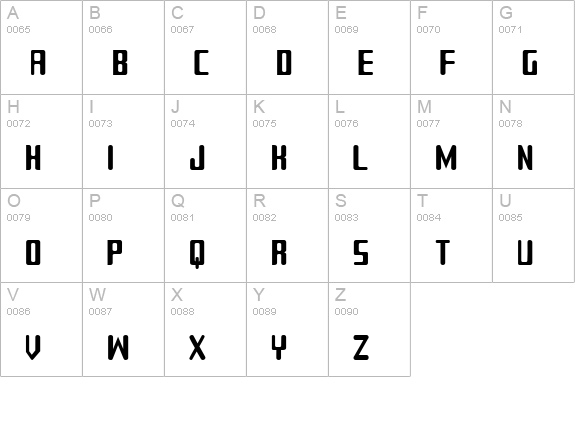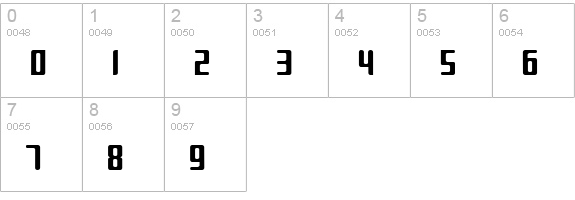
Sujeta Font Details
Sujeta font is a modern and elegant typeface that exudes sophistication and style. With its sleek lines and contemporary design, this font is perfect for adding a touch of class to any project. Whether you're creating a logo, designing a website, or crafting a marketing campaign, Sujeta font will elevate your work to the next level. What sets Sujeta font apart is not only its visual appeal, but also its versatility. This font is suitable for a wide range of applications, from print materials to digital designs. Its clean and crisp letterforms make it easy to read, while its unique personality adds character and flair. The best part? Sujeta font is completely free to download at FontsMarket.com. That's right, you can access this stunning typeface at no cost, making it a valuable addition to your font library. Don't miss out on the opportunity to enhance your projects with Sujeta font – download it today and let your creativity shine!